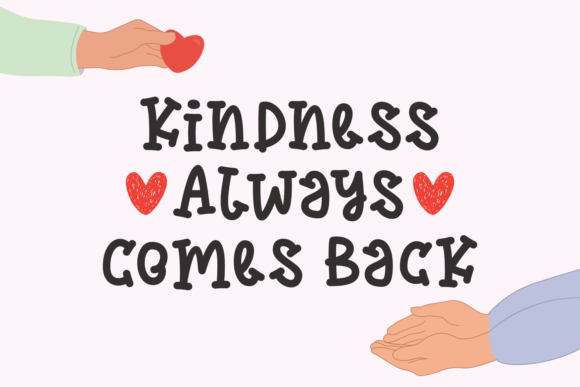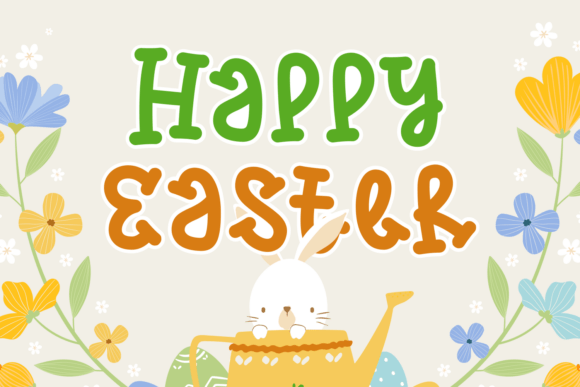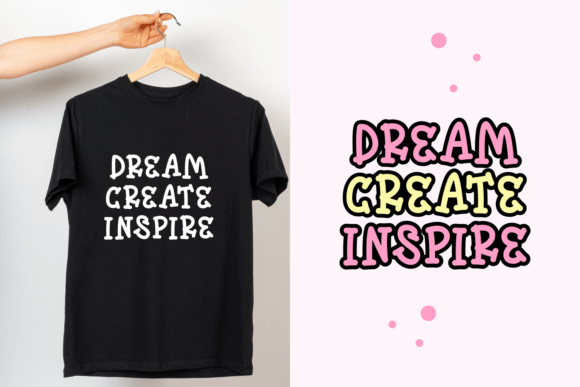
Bunny Jump Font
Unveil the charm of “Bunny Jump,” a whimsical display font that exudes cuteness and joy. This Easter inspired font transforms any design into a delightful celebration of spring. Perfect for cheerful headlines, this font bounces off with vivacity and flair. Expertly hand-drawn, “Bunny Jump” is a treat for the eyes, whether used in wallpaper design, crafts, or any beautiful aesthetics.This font’s popularity extends from social media to photography, and it’s widely utilized in sublimation and school prints. With its playful cursive strokes and unique accents, it’s a favorite among apparel and book cover designers. Not only does it encapsulate authenticity, but it also adds distinction to branding efforts.Suited for both card and logotypes, it keeps designs clean and fresh. It’s also an excellent choice for magazine and packaging designs, adding a touch of delight to every word. Infuse personality into your quotes or spice up your t-shirts with this seasonal font. Lean into a more lighthearted, cartoon style with “Bunny Jump,” a trendy font that never fails to impress.